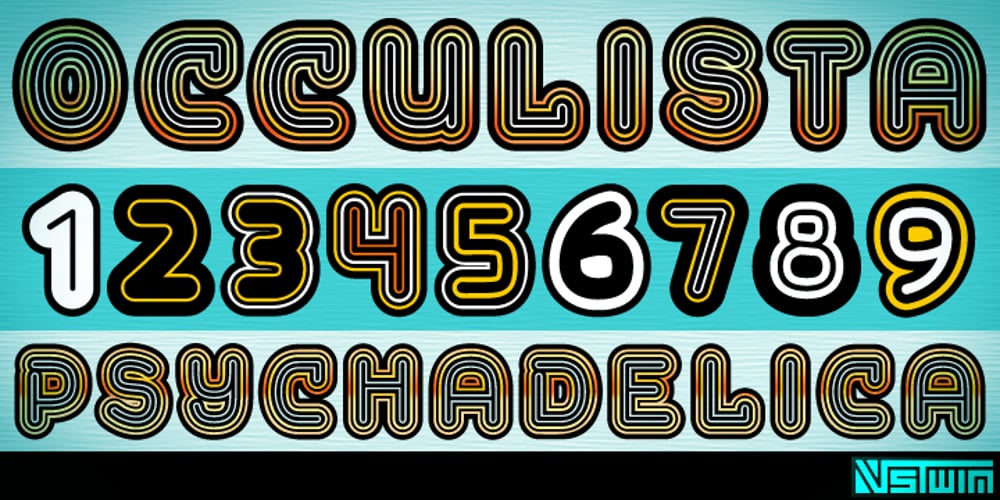
Occulista
Occulista font
Occulista Font Family was designed by Brian J. Bonislawsky, Brian Jaramillo and published by VersusTwin. Occulista contains 9 styles and family package options. Occulista began as a modern take on a vintage tri-line style of typeface, but quickly evolved into something quite different. This heavyweight optically-stimulating family features nine weights, with alternate uppercase letters in place of lowercase. This typeface works best in eye-catching headlines or short bursts of text, and the variant styles can applied to accent key wordings in many interesting combinations.